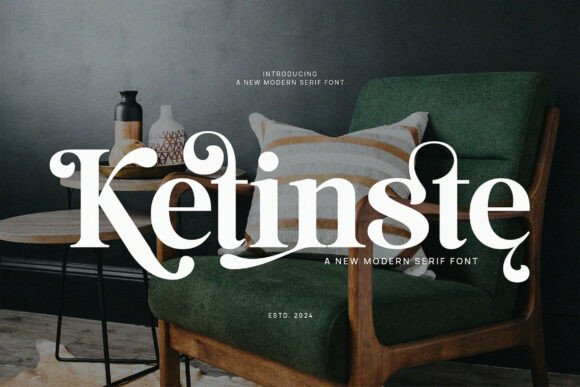
Ketinste Font: Elevate Your Brand with Elegance
In the world of typography, the right font can make all the difference in creating a lasting impression. Introducing Ketinste, a modern serif font that exudes elegance and sophistication. Designed to cater to a wide range of creative projects, Ketinste is the perfect choice for brands, designers, and artists looking to add a touch of refinement to their work.
What is Ketinste Font?
Ketinste is a carefully crafted serif font that boasts a unique blend of modernity and classic charm. Its elegant style makes it an ideal choice for projects that require a high level of sophistication, such as luxury branding, high-end product packaging, and premium editorial content.
With its clean lines, precise curves, and balanced proportions, Ketinste is designed to convey a sense of refinement and poise. Whether you’re looking to create a stunning logo, a beautiful invitation, or a captivating magazine spread, Ketinste is the perfect companion for your creative journey.
Key Features of Ketinste Font
- Elegant Serif Design: Ketinste’s serif design adds a touch of sophistication to any project, making it perfect for high-end branding and editorial content.
- Modern Twist: The font’s modern twist sets it apart from traditional serif fonts, giving it a fresh and contemporary feel.
- Highly Versatile: Ketinste is designed to be highly versatile, making it suitable for a wide range of creative projects, from logos and invitations to magazines and product packaging.
- Excellent Legibility: The font’s clear and precise design ensures excellent legibility, even at smaller font sizes.
Creative Ways to Use Ketinste Font
Ketinste’s versatility makes it an excellent choice for various creative projects. Here are some ideas to get you started:
- Branding and Logos: Create a lasting impression with a stunning logo that showcases your brand’s personality and values.
- Invitations and Events: Add a touch of elegance to your invitations, wedding cards, and event materials with Ketinste’s sophisticated design.
- Magazines and Editorials: Elevate your editorial content with Ketinste’s refined design, perfect for fashion, lifestyle, and luxury publications.
- Product Packaging: Stand out on store shelves with Ketinste’s elegant design, ideal for high-end product packaging and luxury goods.
Typography Tips for Using Ketinste Font
To get the most out of Ketinste, here are some typography tips to keep in mind:
- Pair with Sans-Serif Fonts: Combine Ketinste with sans-serif fonts for a striking contrast that adds visual interest to your design.
- Experiment with Font Sizes: Play with different font sizes to create a clear visual hierarchy and emphasize key elements in your design.
- Pay Attention to Kerning: Adjust the kerning to ensure that the letters flow smoothly and elegantly, enhancing the overall aesthetic of your design.